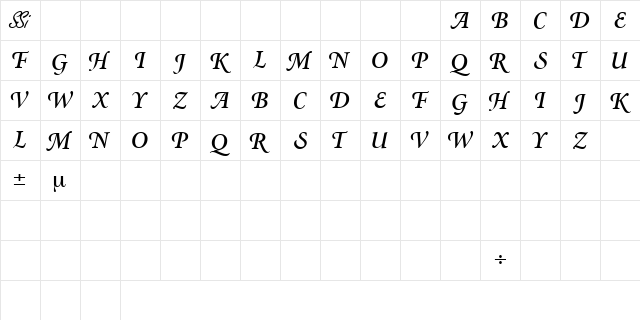
AtlantixSwashCapsSSK flows with the natural rhythm of handwritten lettering, making it ideal for designs that call for warmth and personal expression. Its bold stroke weight gives it real presence on the page.
Font Pairing: Combine AtlantixSwashCapsSSK with a simple geometric sans for maximum contrast - the tension between flowing curves and clean structure is a classic typographic pairing.
Pro Tip: Use AtlantixSwashCapsSSK for short runs of text - names, titles, or taglines. Extended body copy in script faces tires the eye quickly.